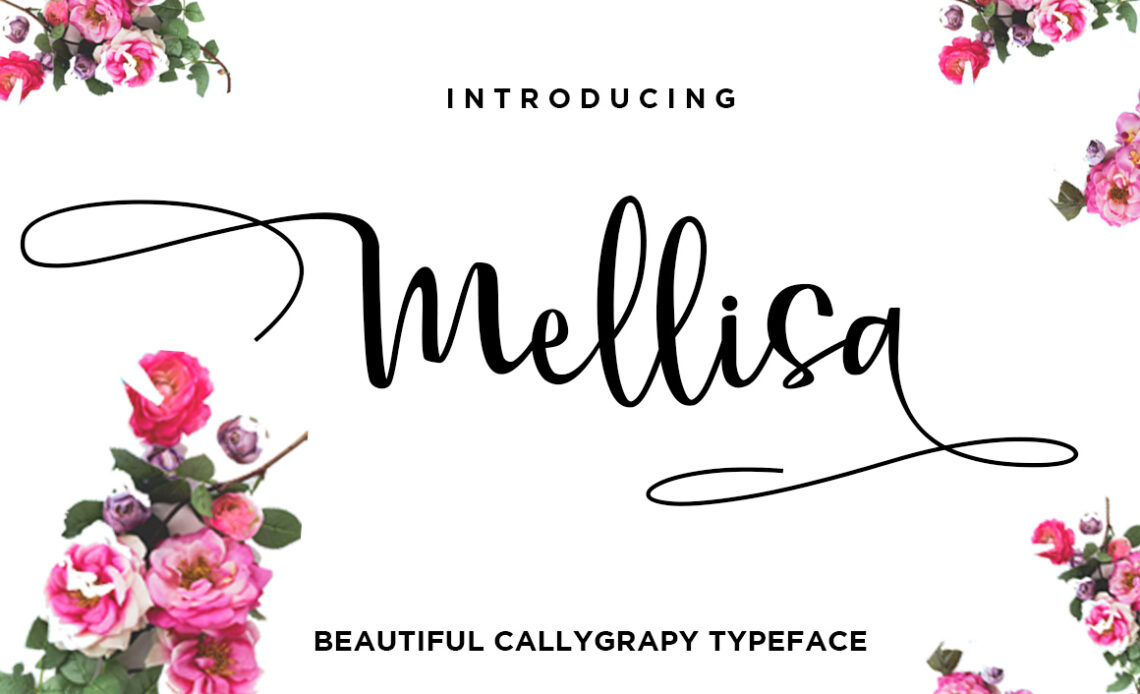
Mellisa Font
**Introducing Mellisa: A touch of elegance and charm for your digital designs.**
In a world where creativity reigns supreme, Mellisa Font stands as a masterpiece of digital artistry, a symphony of curves and lines that captivates the eye and ignites the imagination. This exquisite script font, crafted by the renowned Haksen, is a testament to the power of elegance and charm, a font that transforms words into works of art.
Mellisa Font belongs to the illustrious family of script fonts, known for their graceful strokes and flowing characters. Each letter, meticulously designed with precision, dances across the screen, leaving a trail of sophistication and allure. Its high contrast design adds a striking visual element, creating a captivating dynamic between the thick and thin strokes.
With Mellisa Font, your designs will transcend the ordinary and embrace the extraordinary. Its inherent elegance lends itself perfectly to wedding invitations, love letters, and any project where a touch of romance is desired. Its charm is undeniable, evoking a sense of nostalgia and a longing for days gone by.
Unleash your creativity and let Mellisa Font guide you on a journey of visual storytelling. Its versatility knows no bounds, extending from branding and logo design to social media graphics and website headers. Its presence commands attention, leaving a lasting impression that lingers long after the page is closed.
Mellisa Font is not merely a font; it's an experience, an invitation to step into a world where beauty and elegance reign supreme. It's a font that speaks to the heart, whispering tales of love, joy, and longing. Let Mellisa Font be your muse, your trusted companion as you embark on a creative odyssey that will leave your audience spellbound.